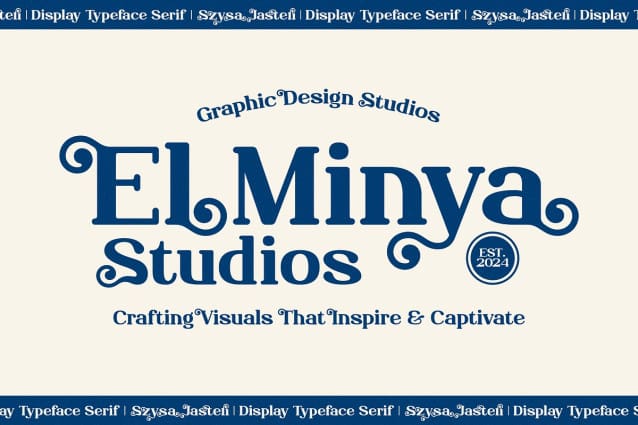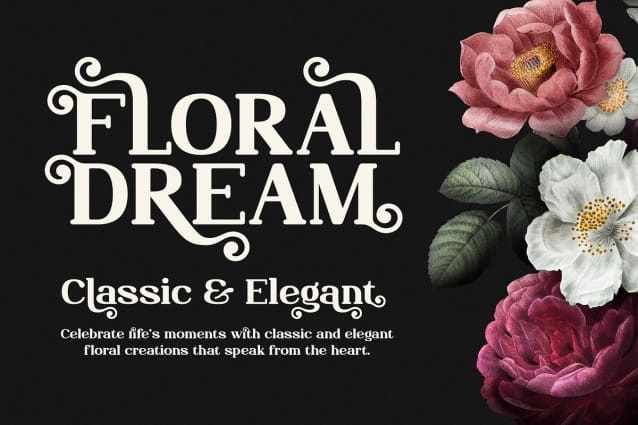
Szysa Jasteri Font
Szysa Jasteri Font | Display Typeface Serif, from Denustudios, suitable for any projects such as: logos, branding projects, homeware designs, product packaging, mugs, quotes, posters, shopping bags, t-shirts, book covers, name card, invitation cards, greeting cards, label, photography, watermark, special events, and all your other lovely projects that need a Display Typeface Serif taste.